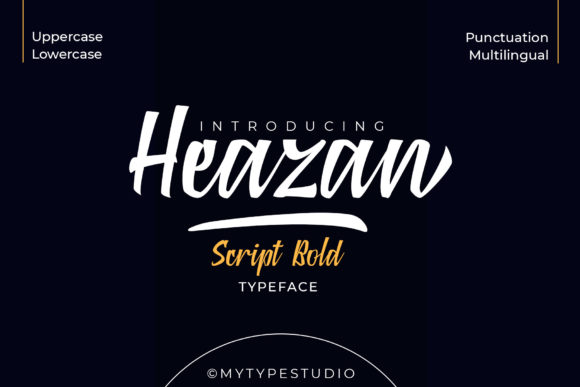
Unleash your individuality and leave a lasting impression with Heazan Font, the ultimate handwritten font masterpiece meticulously crafted by Mytype Studio!
Journey into a world of elegance and sophistication, where Heazan Font dances across your screen, captivating audiences with its enchanting charm. It seamlessly blends the timeless beauty of calligraphy with a modern, refreshing twist, making it the perfect choice for those seeking a font that exudes both grace and innovation.
Effortlessly express your creativity with Heazan Font's extensive collection of glyphs and swashes, accessible at your fingertips thanks to its PUA encoding. Unleash your imagination and let your words flow freely, adorning your creations with a touch of artistic brilliance.
Make a statement with Heazan Font, the perfect companion for your cover letter. Its impeccable design commands attention, ensuring your words shine with confidence and professionalism. Whether you're a creative professional seeking to showcase your unique talents or a job seeker aiming to leave a lasting impression, Heazan Font is your secret weapon to success.
Elevate your digital presence with Heazan Font, the epitome of sophistication and style. Its versatility knows no bounds, effortlessly adapting to a myriad of design projects, from logos and branding to social media graphics and website designs. Transform your creative visions into reality with Heazan Font, the font that turns heads and captures hearts.
Don't settle for ordinary fonts that fade into the background. Embrace the extraordinary with Heazan Font, the font that ignites passion and propels your creativity to new heights. Experience the magic of Heazan Font today and unlock a world of endless possibilities.